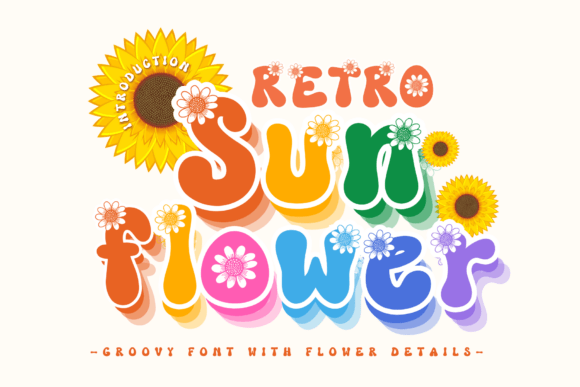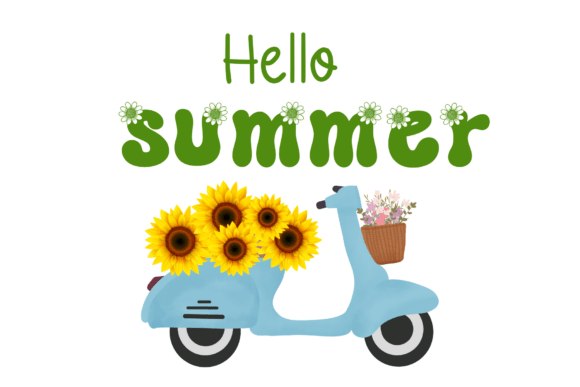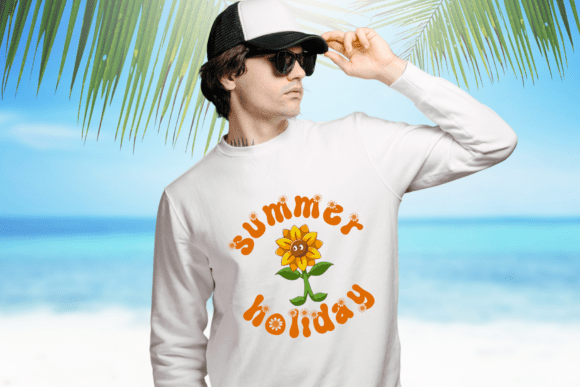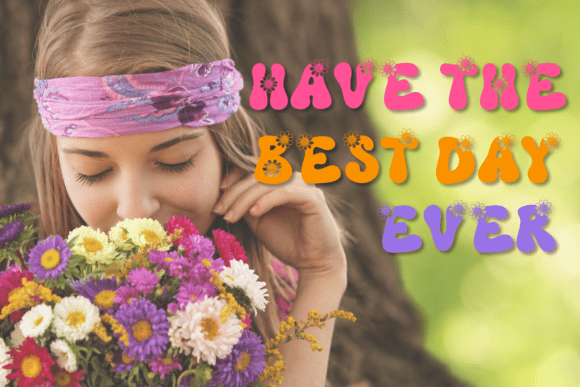
Retro Sunflower Font
About the Retro Sunflower Font
We are excited to introduce Retro Sunflower Font, a must-have typeface for any serious designer. Retro Sunflower is a cute and playful decorative font. Use it to add that special retro touch to any design idea you can think of! Masterfully designed to become a true favorite, this font has the potential to bring each of your creative ideas to the highest level!
Retro Sunflower’s playful character makes it ideal for headlines, short text blocks on posters, packaging for children’s products, or branding for vintage-inspired businesses. Its decorative nature, however, limits its effectiveness in body text or UI elements where legibility is paramount. Avoid using it for large amounts of text or in situations requiring high readability.
This font pairs well with clean sans-serif fonts like Open Sans or Lato for a balanced contrast between playful and professional. For a more retro feel, consider pairing it with a geometric sans-serif such as Futura or a slightly more rounded alternative. A script font with a similar vintage vibe could also work well, depending on the specific design context.
Retro Sunflower’s overall personality is cheerful and nostalgic, lending itself to projects that evoke feelings of fun, happiness, and lightheartedness. It’s a strong choice for brands targeting a younger audience or those wishing to project a sense of playful retro charm.
Retro Sunflower Font Usage Examples
Retro Sunflower Font Example